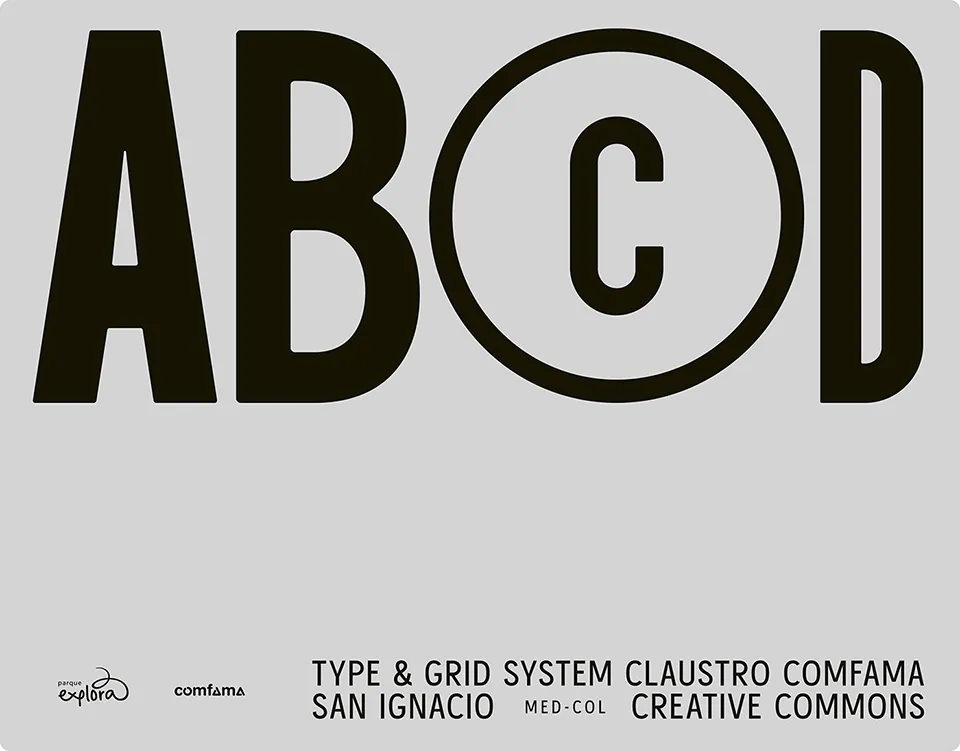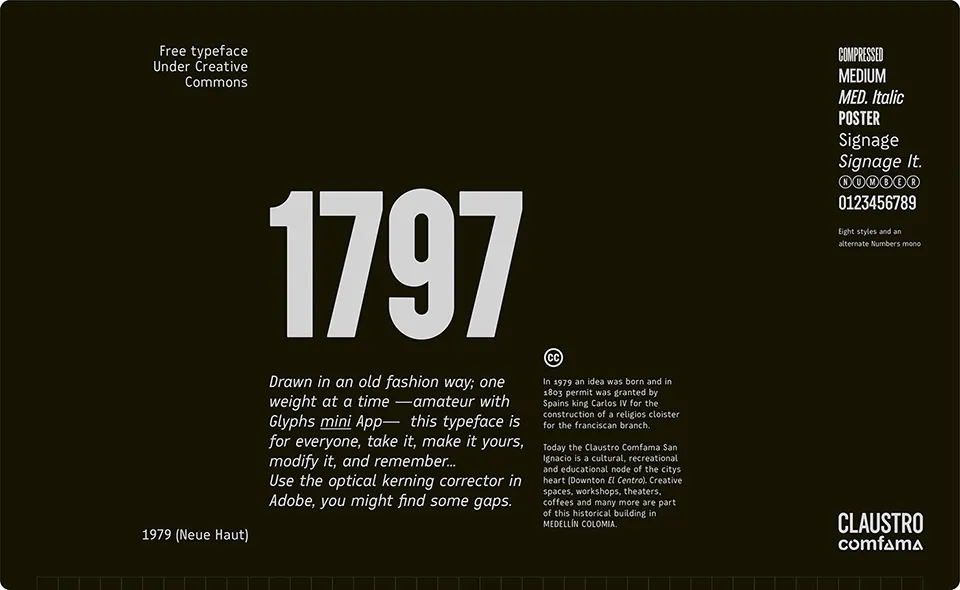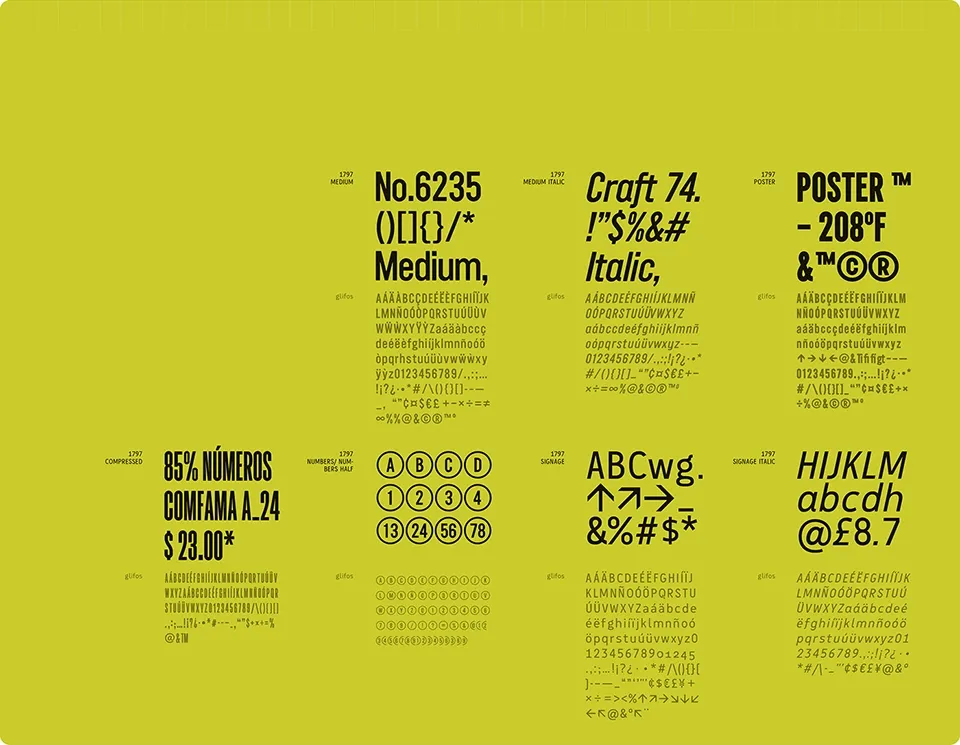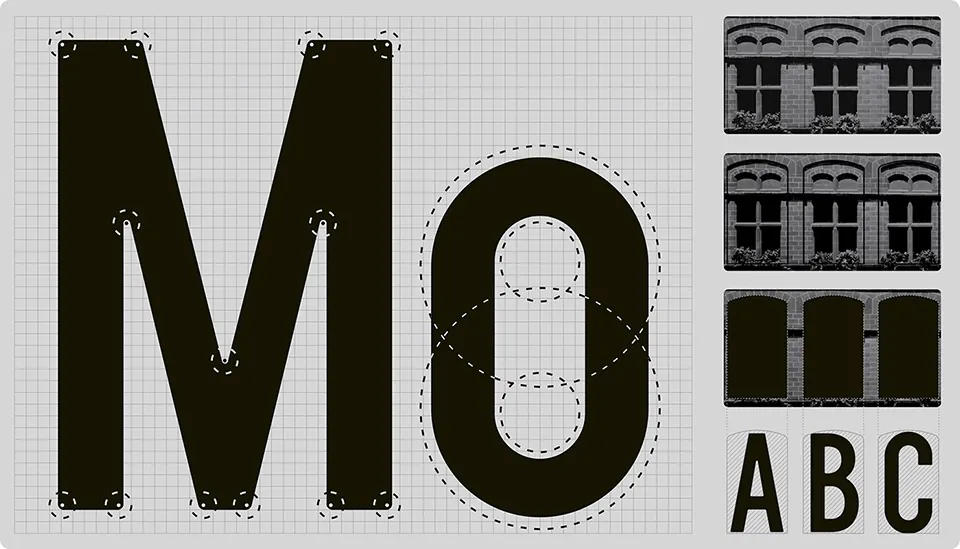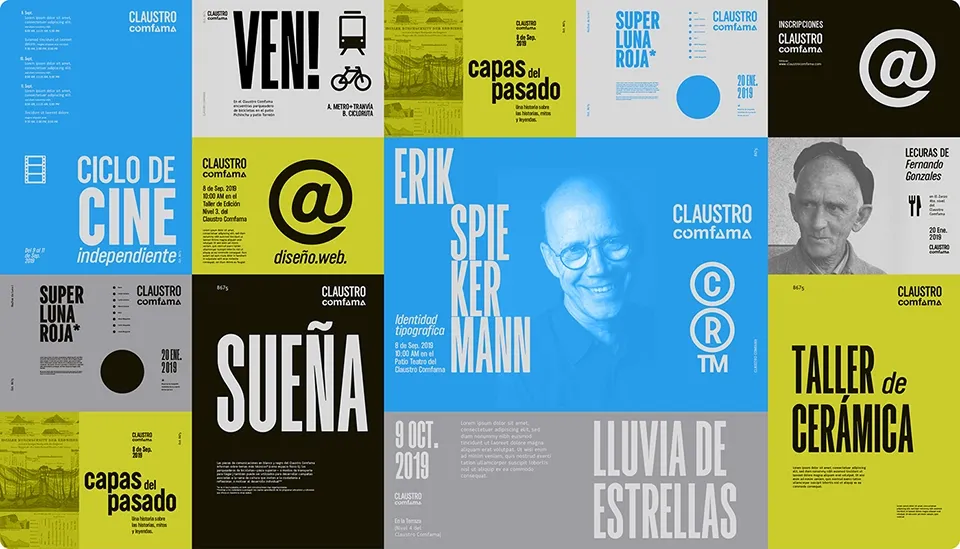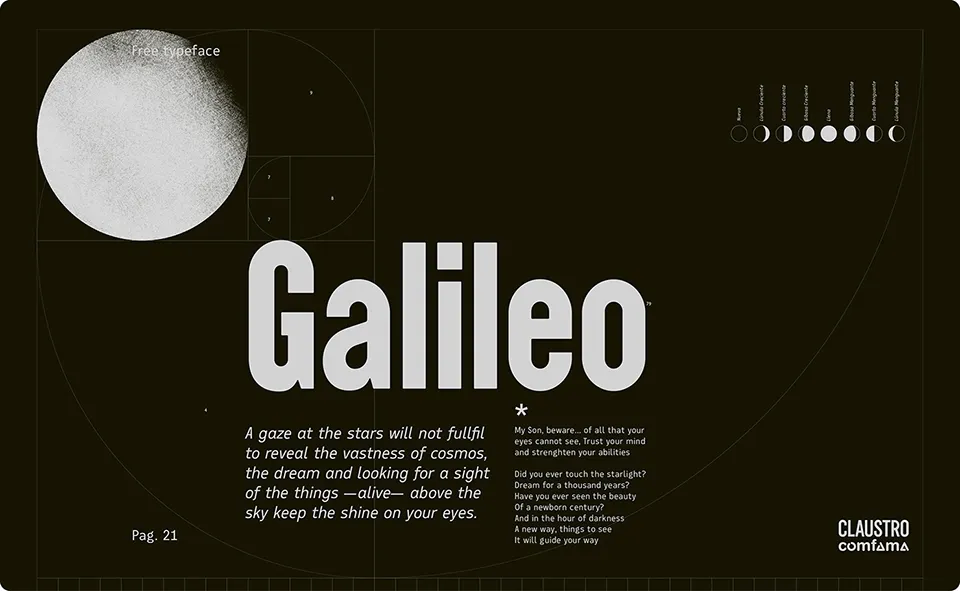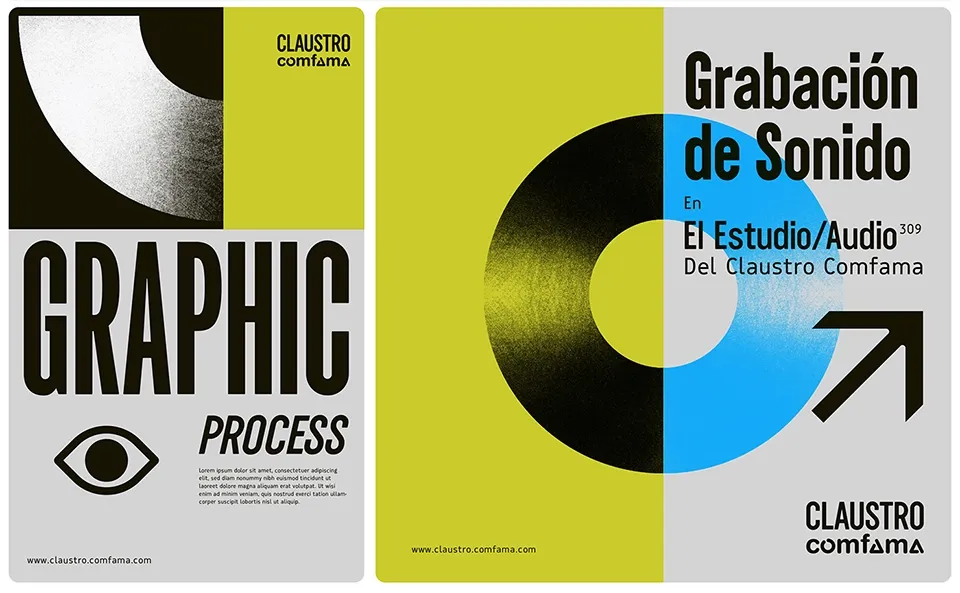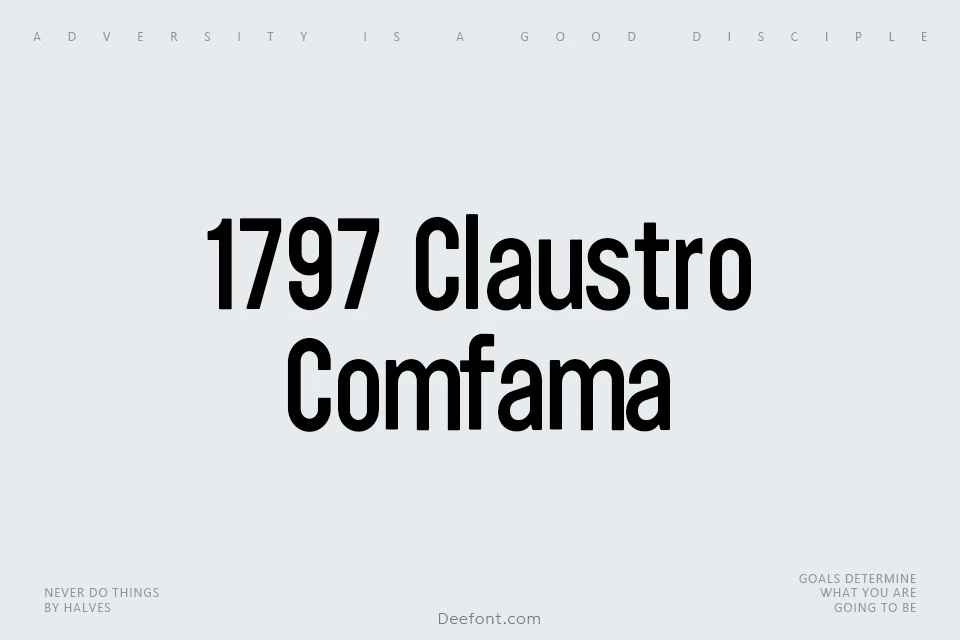
1797 Claustro Comfama Font
1797 Claustro Comfama Font is a bold and modern typeface designed to reflect the architectural and cultural essence of the Claustro Comfama in Medellín, Colombia. Its clean, geometric lines and striking forms evoke a sense of structure and timelessness, making it ideal for both contemporary and classic design projects. Inspired by the historical significance of the San Ignacio district, this font is versatile and impactful, perfect for headlines, signage, and branding. Released under a Creative Commons license, it invites creative exploration while paying homage to its rich cultural roots.